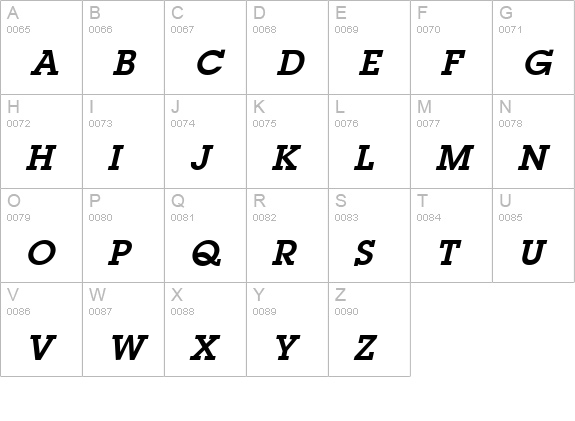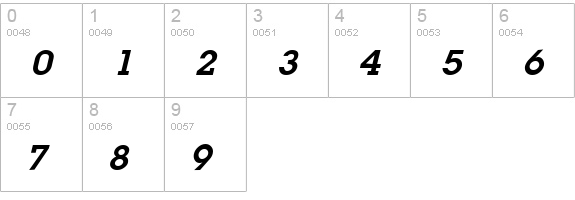
Lapland Bold Italic is a strong, high-contrast, italic variant in the Lapland typeface family \xE2\x80\x94 well suited to headlines, attention-grabbing titles, and strong calls-to-action.
Introducing Lapland Bold Italic font, a captivating and versatile typeface that effortlessly combines elegance with a touch of whimsy. This font exudes an air of modernity and sophistication, making it the perfect choice for any project that requires a touch of uniqueness and style. Lapland Bold Italic font is characterized by its bold and slanted letterforms, which add a dynamic and eye-catching element to any design. The strong and confident strokes create a sense of energy and movement, capturing attention and leaving a lasting impression. What sets Lapland Bold Italic font apart is its seamless blend of boldness and elegance. The italicized nature of the font adds a touch of sophistication and charm, making it ideal for various creative applications. Whether you're designing a logo, a book cover, or a poster, this font will effortlessly elevate your design to new heights. One of the most appealing aspects of Lapland Bold Italic font is that it is freely available to download at FontsMarket.com. This means you can access and use this stunning typeface without any cost, allowing you to unleash your creativity without limitations. With its availability in the digital realm, you can easily incorporate Lapland Bold Italic font into your projects with just a few clicks. With its boldness, elegance, and free availability, Lapland Bold Italic font is a must-have for designers, artists, and creatives alike. Its versatility and captivating aesthetic make it a standout choice for any design project. So, why wait? Download Lapland Bold Italic font now from FontsMarket.com and let your creativity soar to new heights.